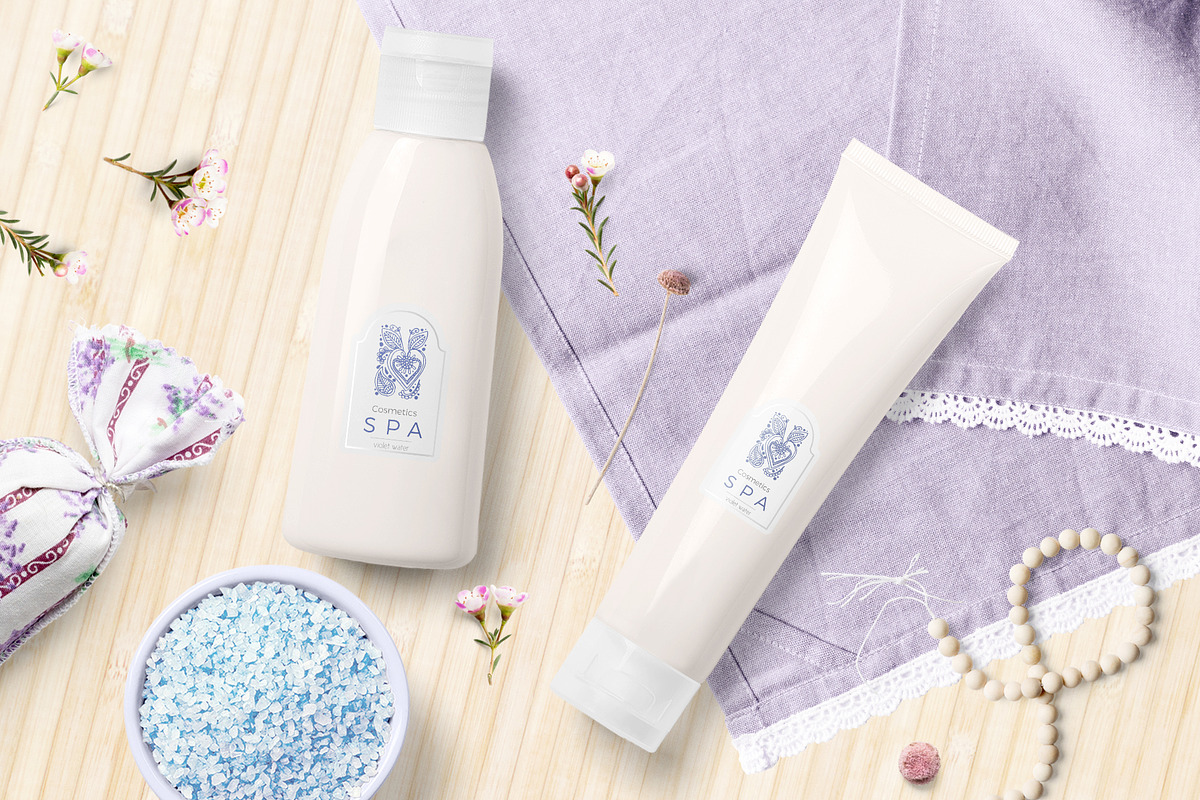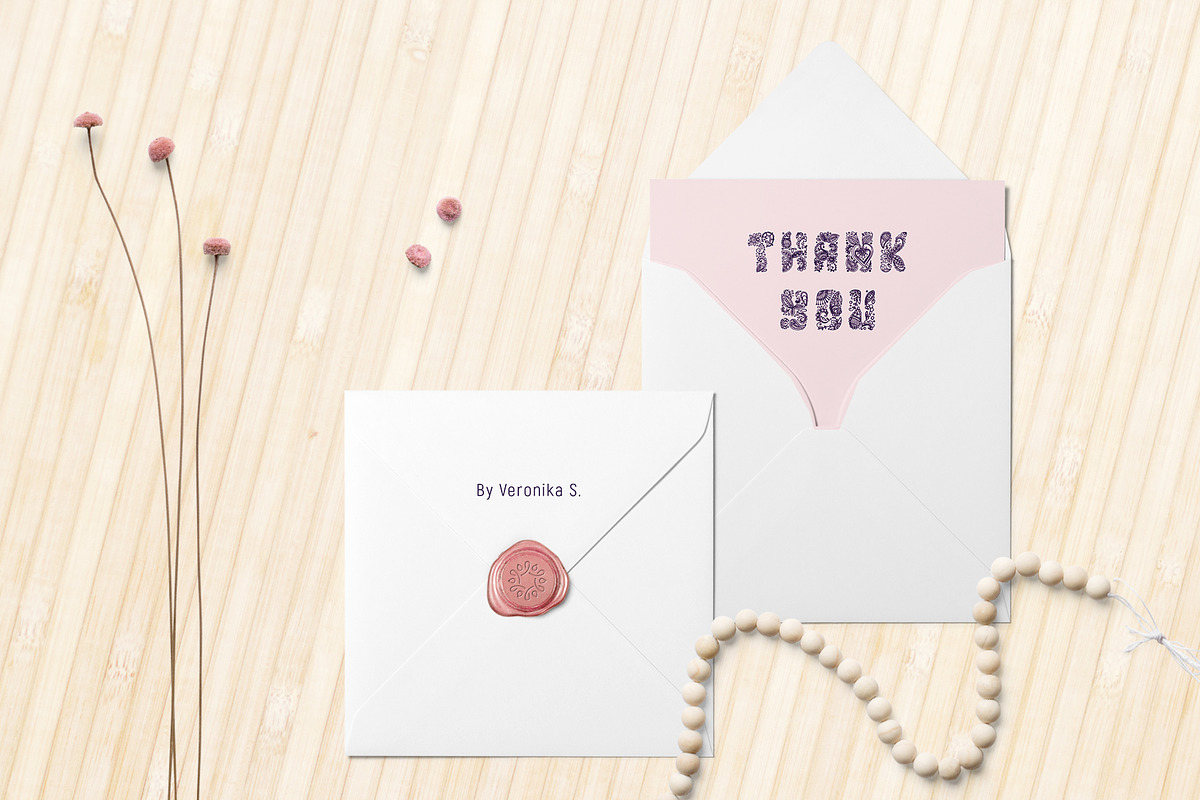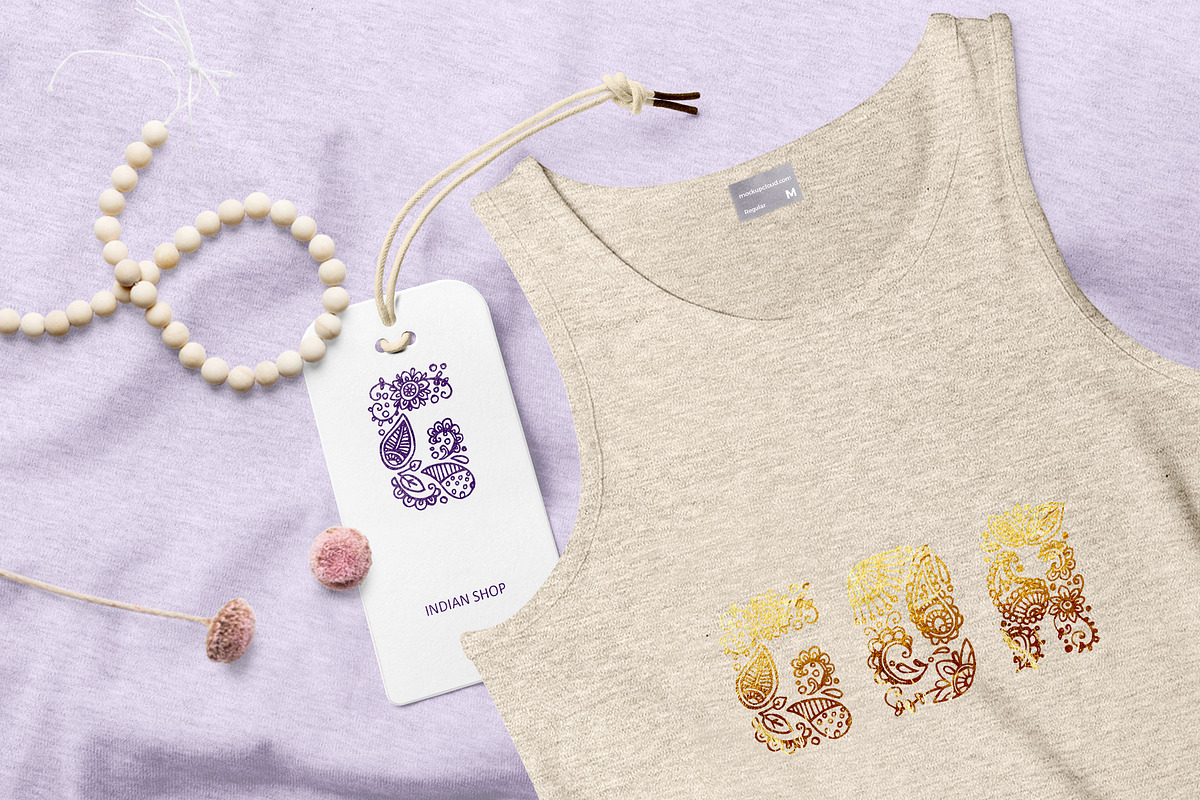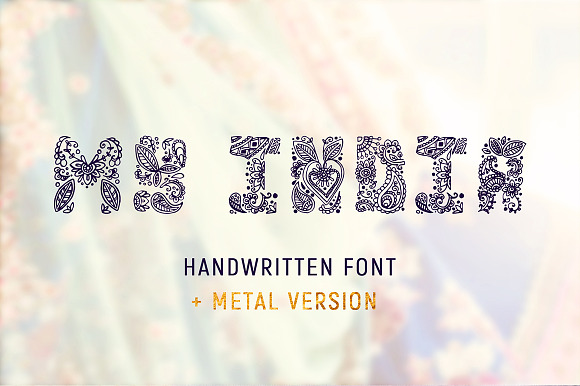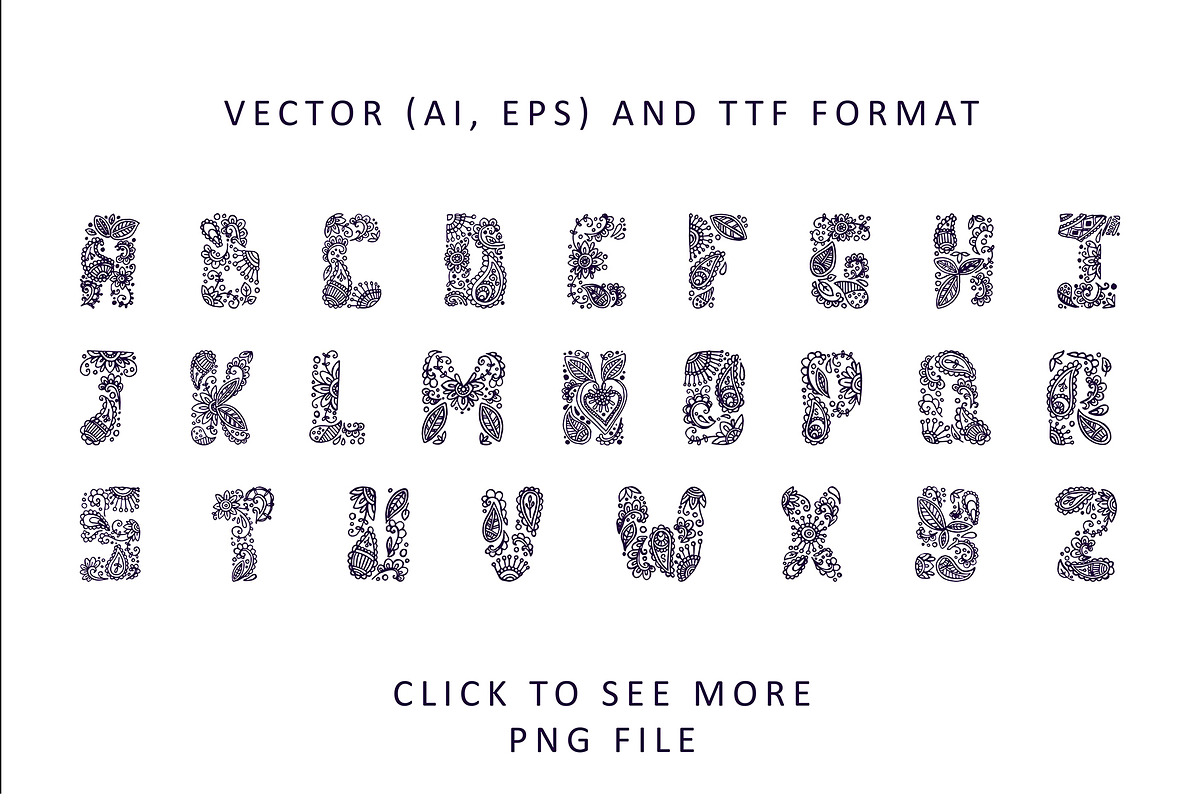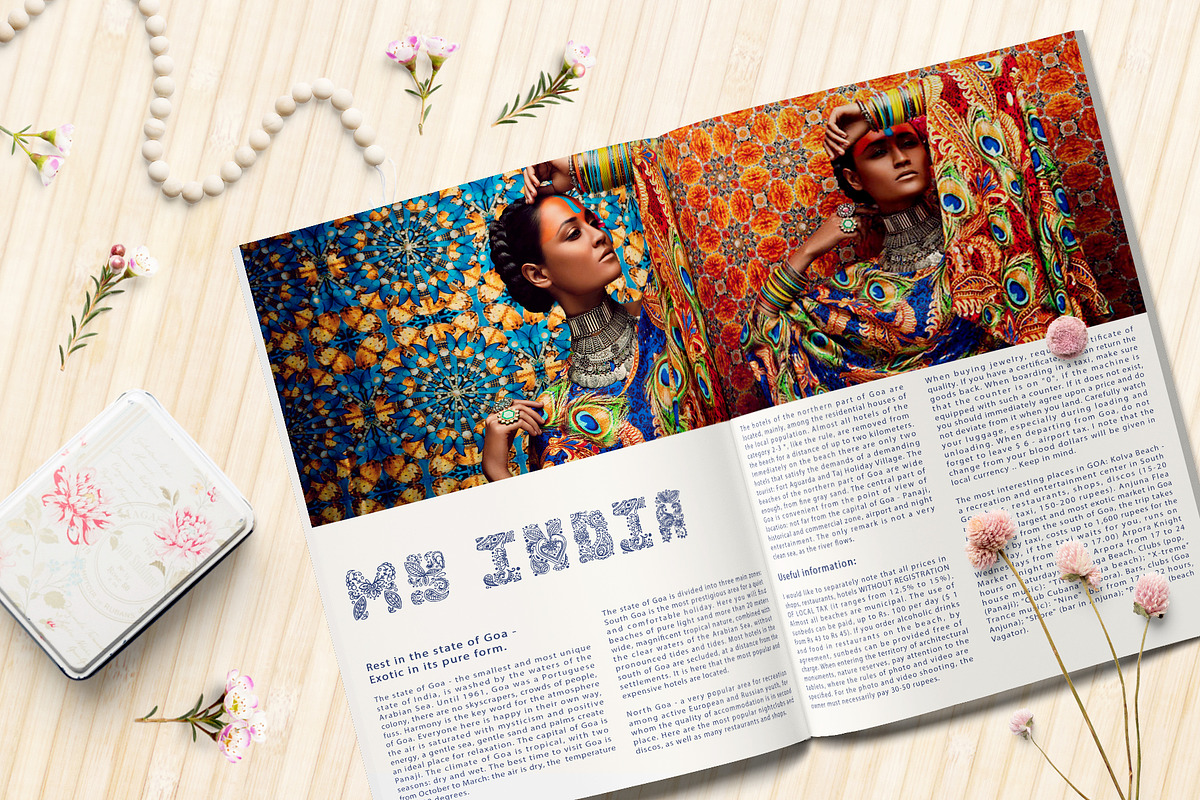
MY INDIA handwritten font
A "MY INDIA" is a set of initials for the book design. The set contains letters in Eps, Ai, Png and TTF formats. This set is ideal for a design of book layout. The initials emphasise the spirit of any story from a fairy tale to historical stories. Use the initials of the "MY INDIA" to recapture the atmosphere of your work.